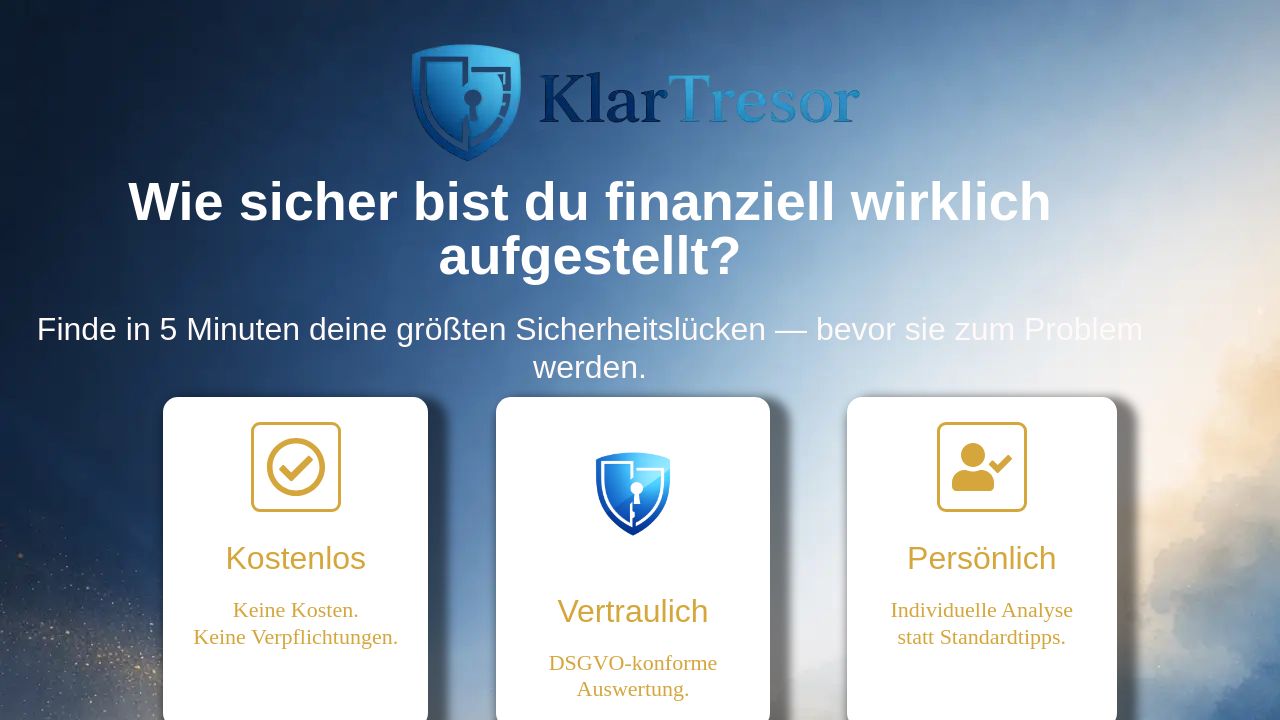
What fonts does Klartresor use?
At klartresor.de, a platform dedicated to travel solutions, the choice of typography plays a crucial role in its visual identity. Utilizing Arial for its system font ensures readability, while Roboto and Montserrat provide a contemporary touch with various weights, catering to diverse design needs. Roboto Slab adds a distinctive character, enhancing the site's appeal. This thoughtful selection resonates with the audience seeking reliable travel information and services.
Frequently asked questions about Klartresor.de's fonts
What fonts are used on klartresor.de?
The primary fonts used on klartresor.de include Arial, Roboto, Montserrat, and Roboto Slab, each serving specific design purposes.
How does Roboto compare to other fonts?
Roboto offers a modern sans-serif style with multiple weights, making it versatile for various applications, unlike more traditional fonts like Arial or Helvetica.
What styles or weights are available for Montserrat?
Montserrat on klartresor.de features a wide range of weights from 100 to 900, allowing for flexibility in design and emphasis across different sections.
Are there fallback fonts used on klartresor.de?
Yes, klarresor.de employs fallback fonts like Helvetica Neue, Segoe UI, and Apple Color Emoji to ensure a consistent appearance across different devices.